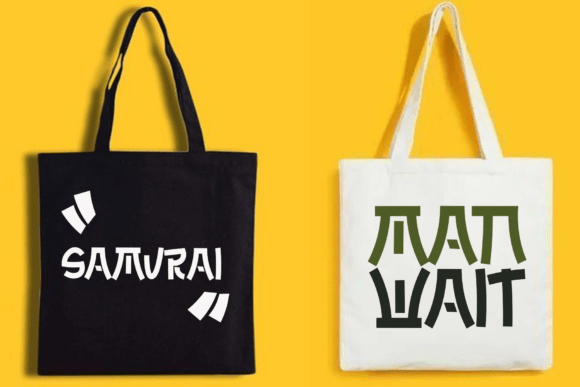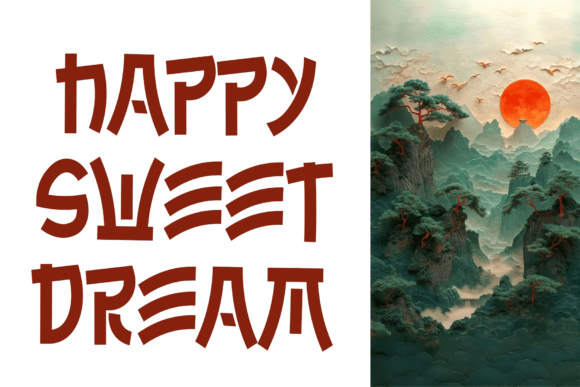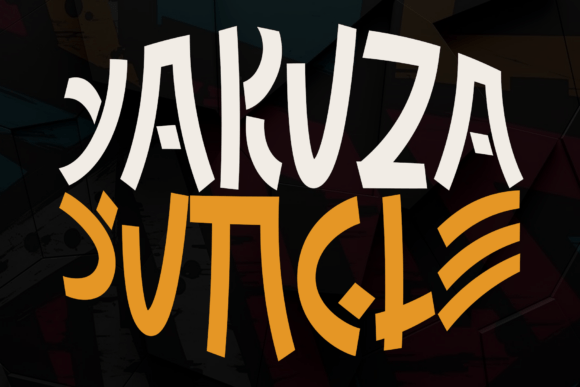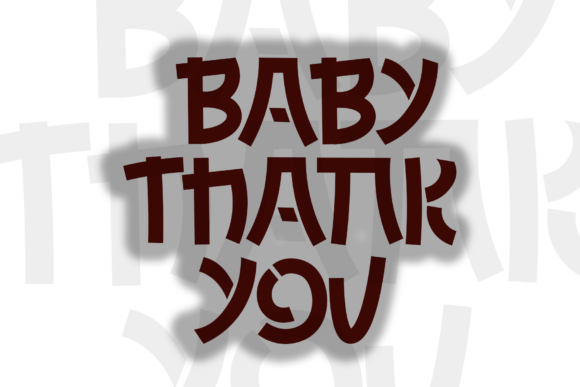
Introducing Chinese Hiragana Font: The Perfect Choice for Fun and Relaxation
Are you tired of using the same old fonts for your creative projects? Look no further than the Chinese Hiragana Font, a neat and casual display font that radiates fun and relaxation. With its clean lines and easygoing vibe, this cheerful typeface is perfect for summer posters, event flyers, and playful branding.
What is Chinese Hiragana Font?
Chinese Hiragana Font is a unique and stylish font that combines the simplicity of Chinese characters with the playfulness of Hiragana, a Japanese script. The result is a font that is both elegant and carefree, making it perfect for a wide range of creative projects.
Key Features of Chinese Hiragana Font
- Clean Lines: Chinese Hiragana Font features clean and simple lines that give it a modern and fresh look.
- Easygoing Vibe: The font has a relaxed and casual feel that makes it perfect for projects that require a playful touch.
- Fun and Relaxation: The font radiates fun and relaxation, making it ideal for summer posters, event flyers, and playful branding.
- Versatile: Chinese Hiragana Font can be used for a wide range of creative projects, from posters and flyers to logos and social media graphics.
Perfect for Summer Posters and Event Flyers
Summer is here, and what better way to celebrate than with a fun and playful font? Chinese Hiragana Font is perfect for creating eye-catching summer posters and event flyers that will grab the attention of your audience. Whether you’re promoting a music festival, a beach party, or a summer sale, this font is sure to bring the fun and excitement.
Playful Branding with Chinese Hiragana Font
Chinese Hiragana Font is not just limited to posters and flyers. It’s also perfect for playful branding, including logos, packaging, and social media graphics. The font’s easygoing vibe and clean lines make it a great choice for brands that want to convey a sense of fun and approachability.
Tips for Using Chinese Hiragana Font
- Use it for Headlines: Chinese Hiragana Font is perfect for headlines and titles, where its bold and playful style can really shine.
- Pair it with Other Fonts: Experiment with pairing Chinese Hiragana Font with other fonts to create a unique and interesting look.
- Use it in Color: Don’t be afraid to use Chinese Hiragana Font in color. The font’s clean lines and simple shapes make it perfect for use with bright and bold colors.
In conclusion, Chinese Hiragana Font is a unique and stylish font that is perfect for creative projects that require a fun and playful touch. With its clean lines, easygoing vibe, and versatile style, it’s a great choice for summer posters, event flyers, and playful branding. Whether you’re a designer or a crafter, Chinese Hiragana Font is sure to bring a breezy and laid-back feel to any project or message.
FAQs About Chinese Hiragana Font
- What is Chinese Hiragana Font? Chinese Hiragana Font is a unique and stylish font that combines the simplicity of Chinese characters with the playfulness of Hiragana.